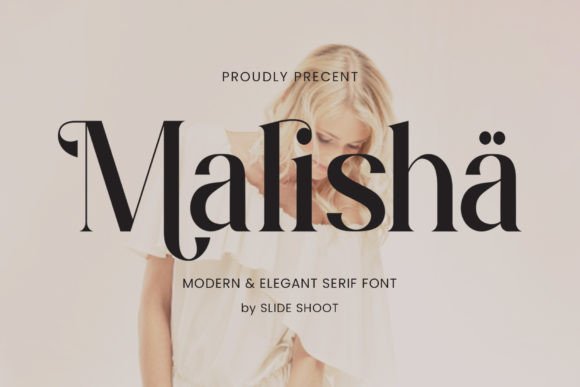
Introducing Malisha Serif, the exquisite font that embodies grace and refinement. Its balanced strokes, smooth curves, and elegant contours create a timeless aesthetic that will elevate any design project.
Malisha Serif's versatility knows no bounds. Whether you're crafting an unforgettable invitation card, designing a captivating company logo, or giving life to a mesmerizing movie title, this font will effortlessly enhance your vision. Its delicate serifs add a touch of sophistication, while its PUA encoding empowers you with effortless access to a world of glyphs and swashes, unlocking endless creative possibilities.
Immerse yourself in the world of Malisha Serif, where every letter dances with elegance. Let its subtle beauty grace your designs and captivate your audience with its timeless allure. Experience the transformative power of this extraordinary font and elevate your creations to new heights of style and sophistication.